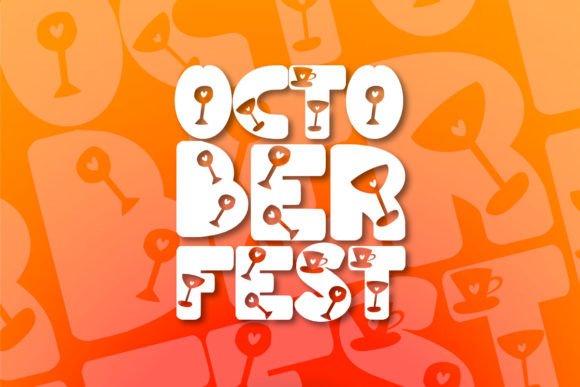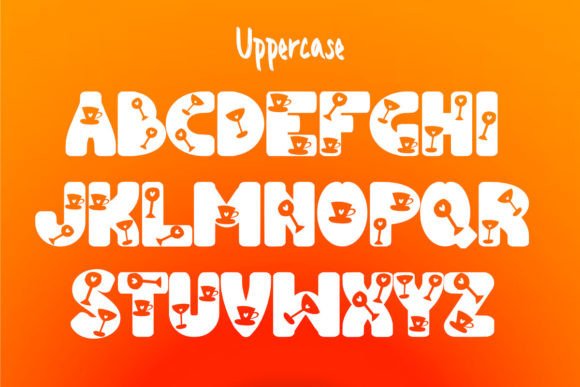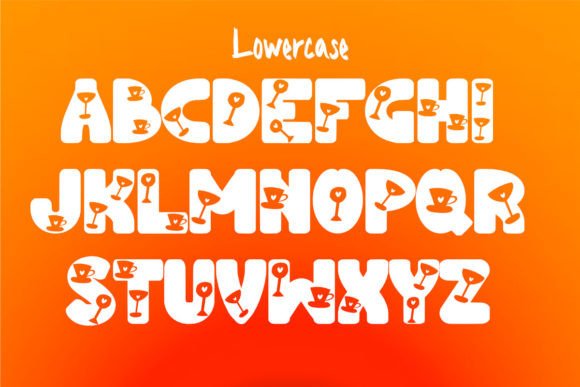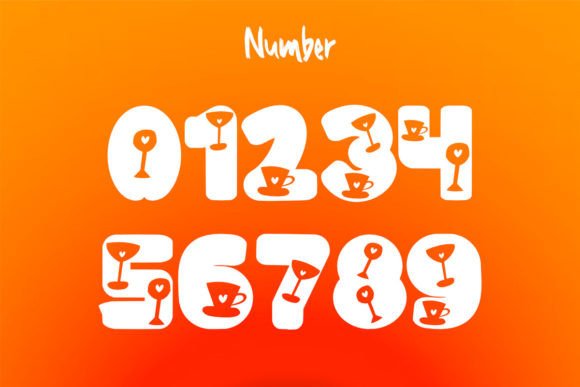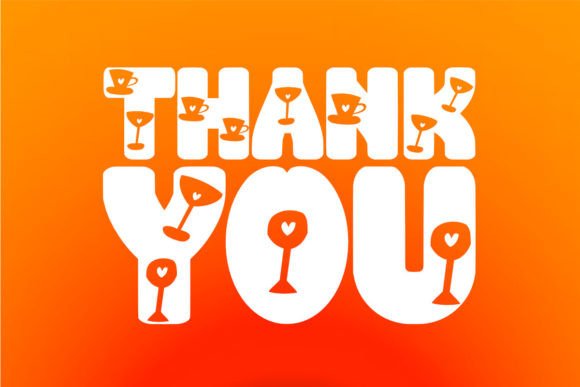
Introduction to Mokee Font
Mokee is a decorative font with a unique and cute party drink theme.
This font is perfect for printing needs such as t-shirts, mugs, tumblers, book covers, posters, and many other creative ideas .
Key Features of Mokee Font